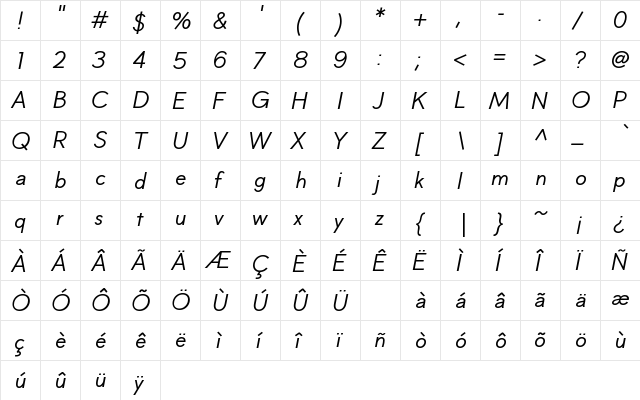
KingsHatSansItalicA1 Regular
Design Context for KingsHatSansItalicA1 Typeface
KingsHatSansItalicA1 takes a measured approach to typography — its balanced proportions and neutral character make it a reliable workhorse for both digital and print work. The slanted form adds forward momentum and visual energy.
Pro Tip: Use KingsHatSansItalicA1 for emphasis, pull quotes, and subheadings where its slanted energy can add rhythm to the layout.